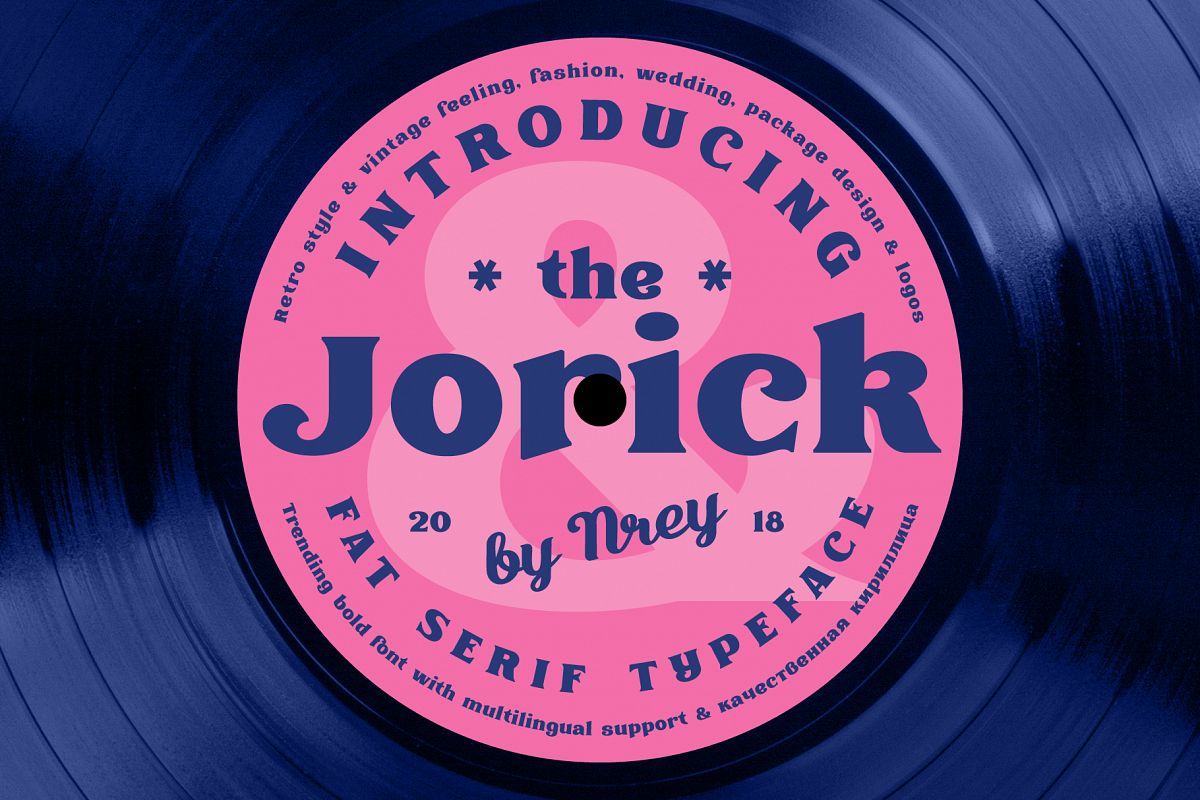
Jorick
Jorick is a vintage feeling serif font inspired by retro fonts.
It perfectly represents modern and vintage esthetics. The font includes both uppercase and smallcase letters.
The font is perfect for wedding elegant invitation cards, beauty and fashion package design,
very suitable for books design, magazines typography, packaging, branding and more other creative project.
It have supporting for many european languages and perfect cyrillic!